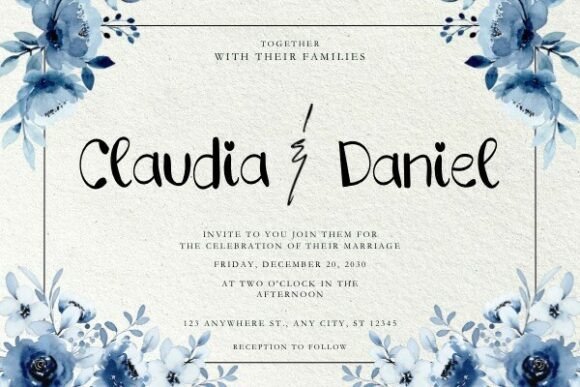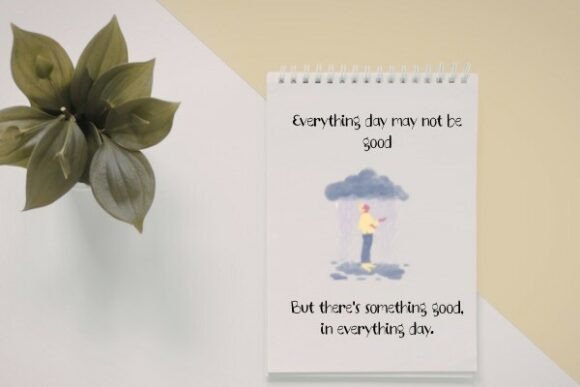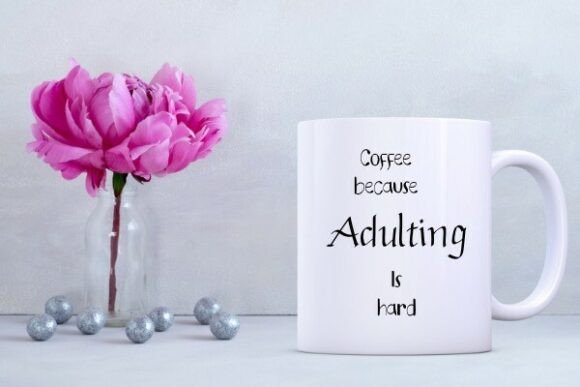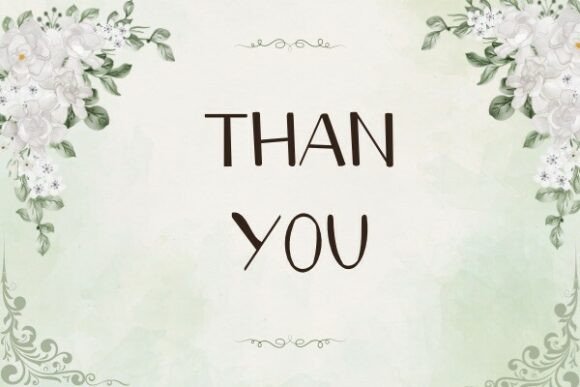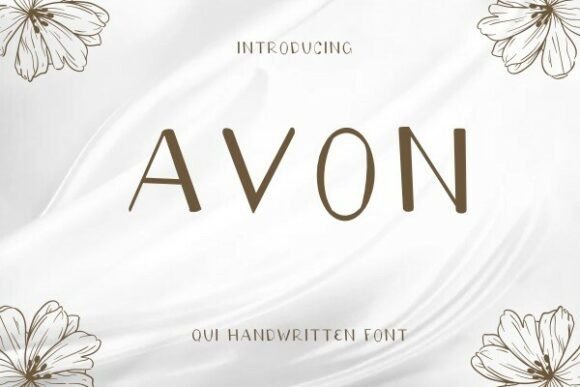
Unleash Your Creativity with the Avon Font
As a designer, have you ever stared at a blank canvas, waiting for the perfect font to spark your creativity? For many, the moment of inspiration is like finding a needle in a haystack – it can strike at any moment, transforming a simple project into a masterpiece. For those who crave that elusive spark, look no further than the Avon Font.
This handcrafted font is more than just a tool for designers; it’s a work of art that effortlessly combines elegance and creativity. Whether you’re designing T-shirt graphics, invitation cards, or greeting cards, the Avon Font adds a unique touch that sets your work apart from the rest. Its distinct style makes it a valuable asset for designers seeking to elevate their craft and leave a lasting impression.
Avon Font Key Features
- Unique Characteristics: The Avon Font features a unique blend of modern and vintage elements, with subtle flourishes and ornaments that add a touch of elegance to any design.
- Font Style: Avon Font is available in multiple styles, including Regular, Italic, Bold, and Bold Italic, allowing designers to choose the perfect look for their project.
Avon Font Review
Avon Font is a beautiful script font that brings a touch of elegance and sophistication to any design project. ✨ The flowing lines and subtle flourishes make it perfect for creating a sense of luxury and refinement. I’ve used it for branding, invitations, and even typography-based designs, and it always turns out stunning.
One of the things I love about Avon Font is its versatility. ✨ It comes in a variety of weights and styles, from light and delicate to bold and dramatic, making it easy to match with any color scheme or design aesthetic. The font also works well in both print and digital formats, which is a huge plus for designers who need to adapt their work to different mediums.
- ⚠️ Limited character set: While Avon Font is available in a range of weights and styles, it’s not a full Unicode font, which can be a limitation for designers who need to work with non-Latin scripts or special characters.
- ⚠️ Not ideal for small text: Due to its flowing lines and intricate details, Avon Font is best suited for larger text sizes. At smaller sizes, the font can become difficult to read.
Overall, I think Avon Font is a wonderful addition to any designer’s toolkit. While it may have some limitations, its beauty and versatility make it a great choice for a wide range of design projects.
Tips for Getting the Most Out of Avon Font
Avon Font is a versatile font that can be used for a variety of designs. To get the most out of it, try:
- Pairing it with bold fonts for a striking contrast.
- Using it for headings and titles to add a touch of elegance.
- Experimenting with different font sizes and styles to create visual interest.
Avon Font is commonly used for:
- Magazine and newspaper headlines.